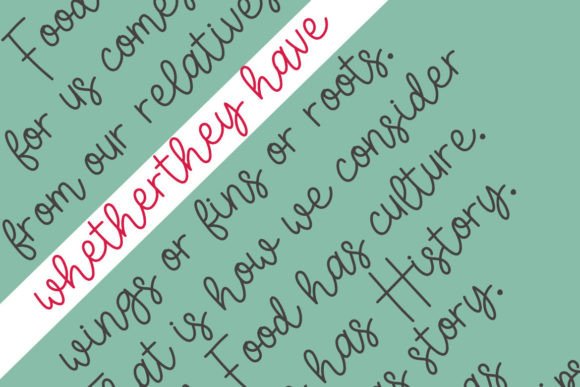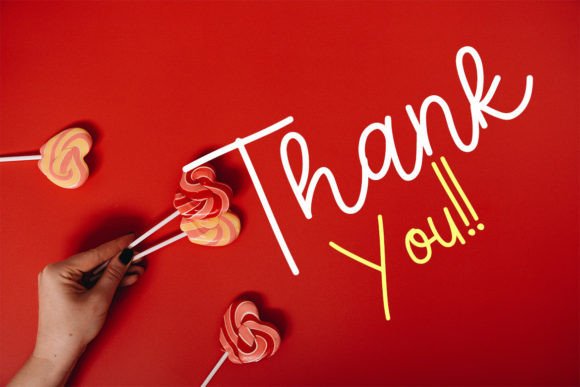
Introduction to Jeli Font
Have you ever been stuck on a creative project, staring blankly at a blank page, searching for the perfect font to bring your idea to life? That’s where the Jeli Font comes in – a sweet and friendly handwritten font that’s sure to add a touch of personality to your design. Its natural and unique style makes it incredibly versatile, allowing you to let your imagination run wild and create something truly special.
The Jeli Font is more than just a design resource – it’s a valuable tool for designers looking to elevate their creations. With its PUA encoded features, you can access all of the amazing glyphs and ligatures with ease, giving you the freedom to experiment and push the boundaries of your creativity. Whether you’re working on a high-quality design project or just looking for a new font to add to your library, the Jeli Font is an excellent choice.
Key Features of Jeli Font
- Unique characteristics: Jeli Font features a modern and elegant design, with a distinctive style that sets it apart from other fonts.
- Perfect for use in digital design, including web design, graphic design, and UI/UX design projects.
Honest Review: Jeli Font
I recently stumbled upon the Jeli Font and was excited to try it out for my latest creative project. After using it, I wanted to share my honest thoughts with fellow designers.
- ✨ The font’s unique, modern design makes it perfect for any design resource, especially those that require a touch of sophistication.
- ✨ The high-quality design ensures that text remains crisp and clear, even at small font sizes.
- ✨ The transparent background feature allows for seamless integration with any background image or color.
- ⚠️ The font’s font family is relatively small, so it may not be suitable for larger-scale projects.
- ⚠️ The font doesn’t support some special characters, which may be a issue for designers working on international projects.
Overall, I’m impressed with the Jeli Font’s design and features. While it may have some limitations, it’s a solid addition to any designer’s toolkit. With its unique design and high-quality output, it’s definitely worth checking out for your next creative project.
Tips for Getting the Most Out of Jeli Font
Use Jeli Font with a transparent background to create a design that pops. Experiment with different font sizes and styles to add visual interest to your project.
Jeli Font is ideal for creative projects, such as logos, branding materials, and social media graphics. Its high-quality design makes it a valuable resource for any design enthusiast.